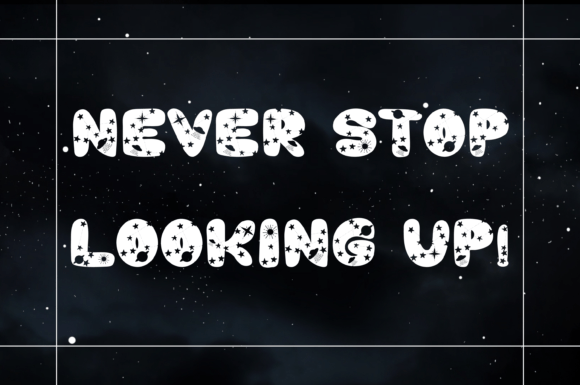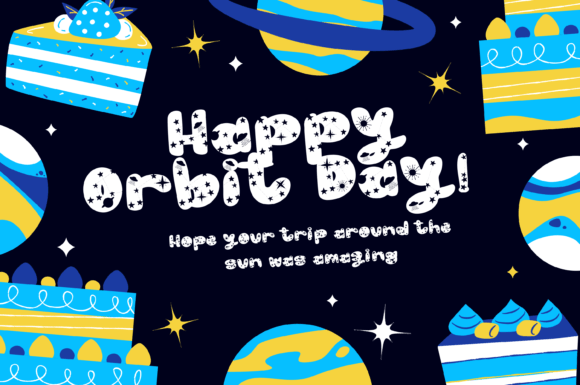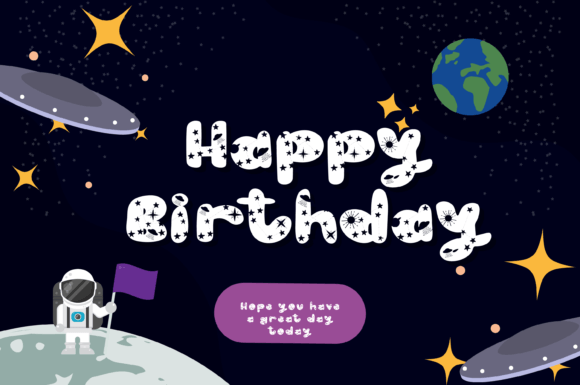
Introduction to Galaxy Gravity Font
Galaxy Gravity is a whimsical and fun decorative display font.
Key Features of Galaxy Gravity Font
Why Choose Galaxy Gravity Font?